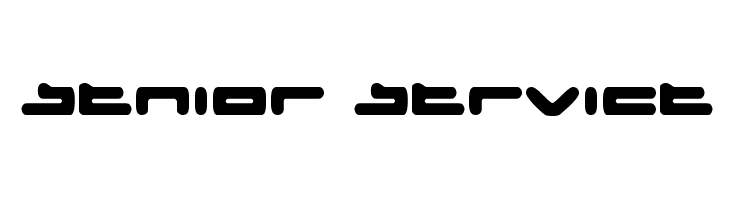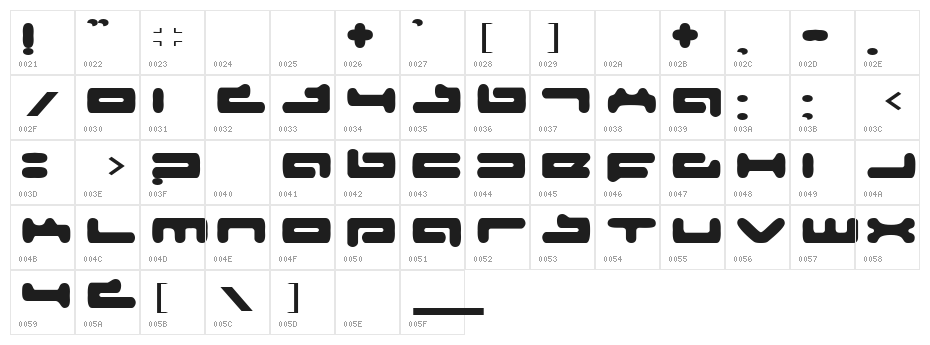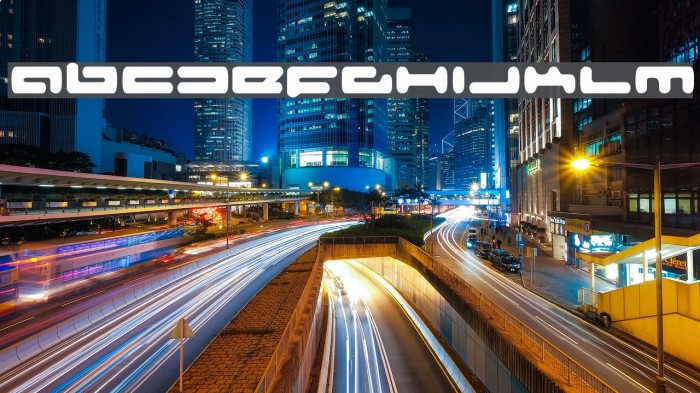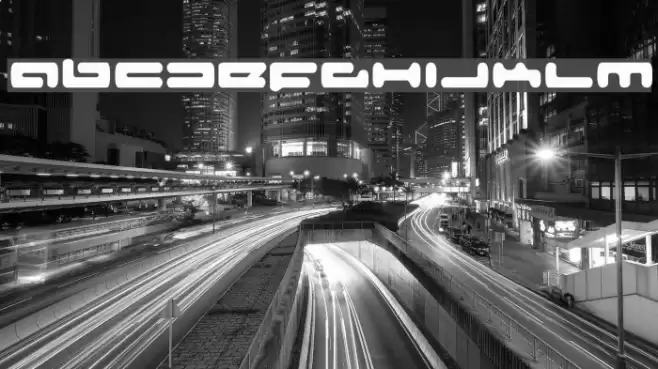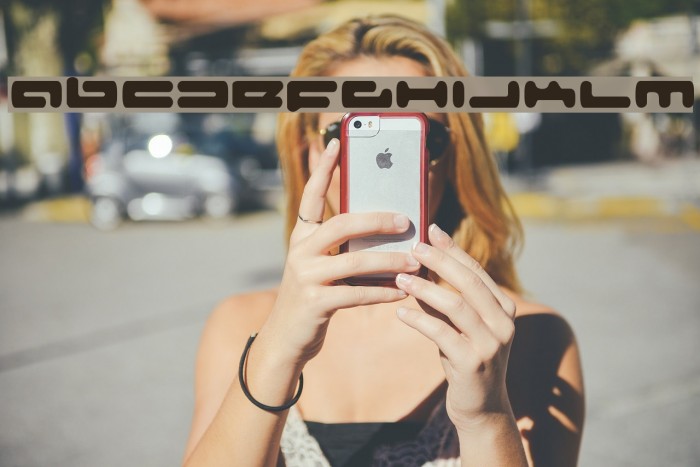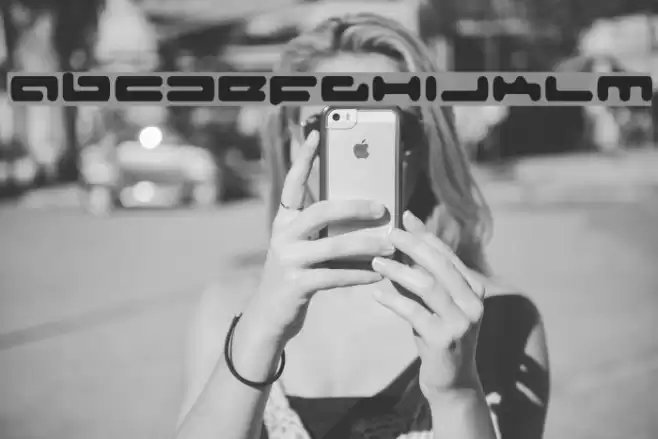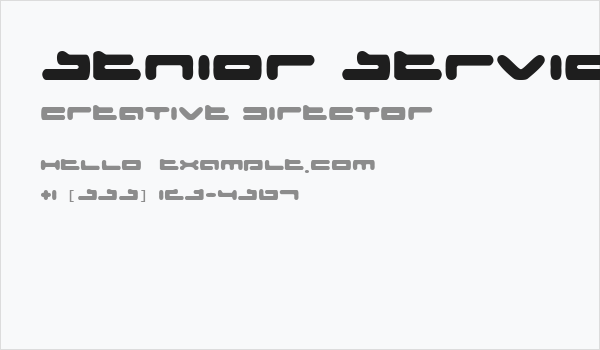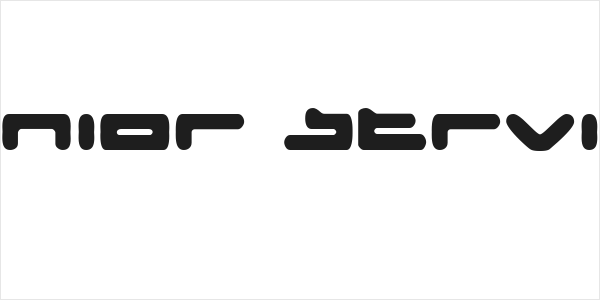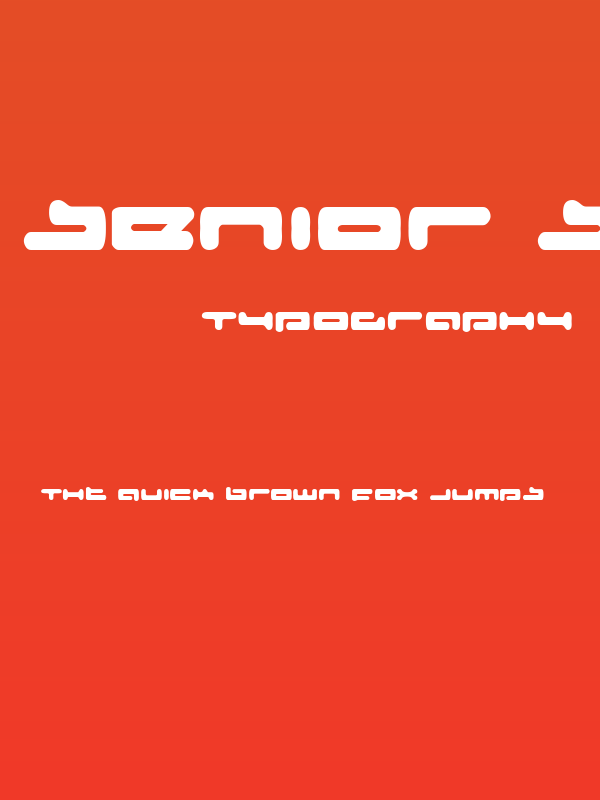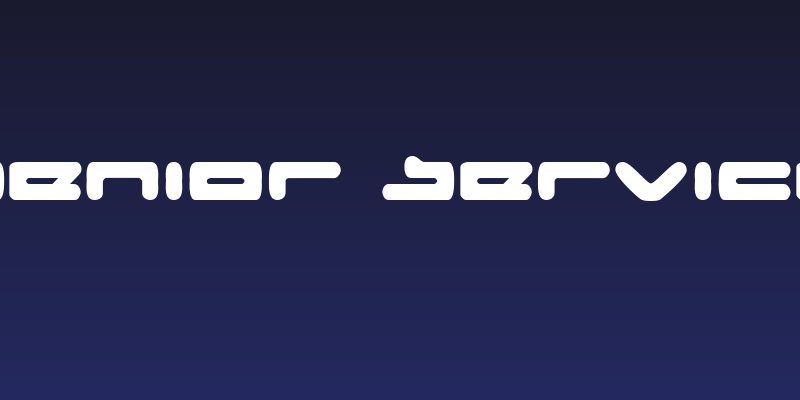
Senior Service Font
Senior Service Description
This font features a futuristic and geometric design with rounded edges and a bold presence. The characters are constructed with uniform thickness, creating a cohesive and modern look. The uppercase and lowercase letters share a similar style, emphasizing the font's unique and consistent aesthetic. The numbers and special characters are designed to match the overall theme, providing a seamless integration across all elements. This font's distinct style makes it suitable for projects that require a contemporary and tech-inspired appearance.
| Proposed Projects | Ideal for technology branding, sci-fi themed designs, video game interfaces, and modern advertising. |